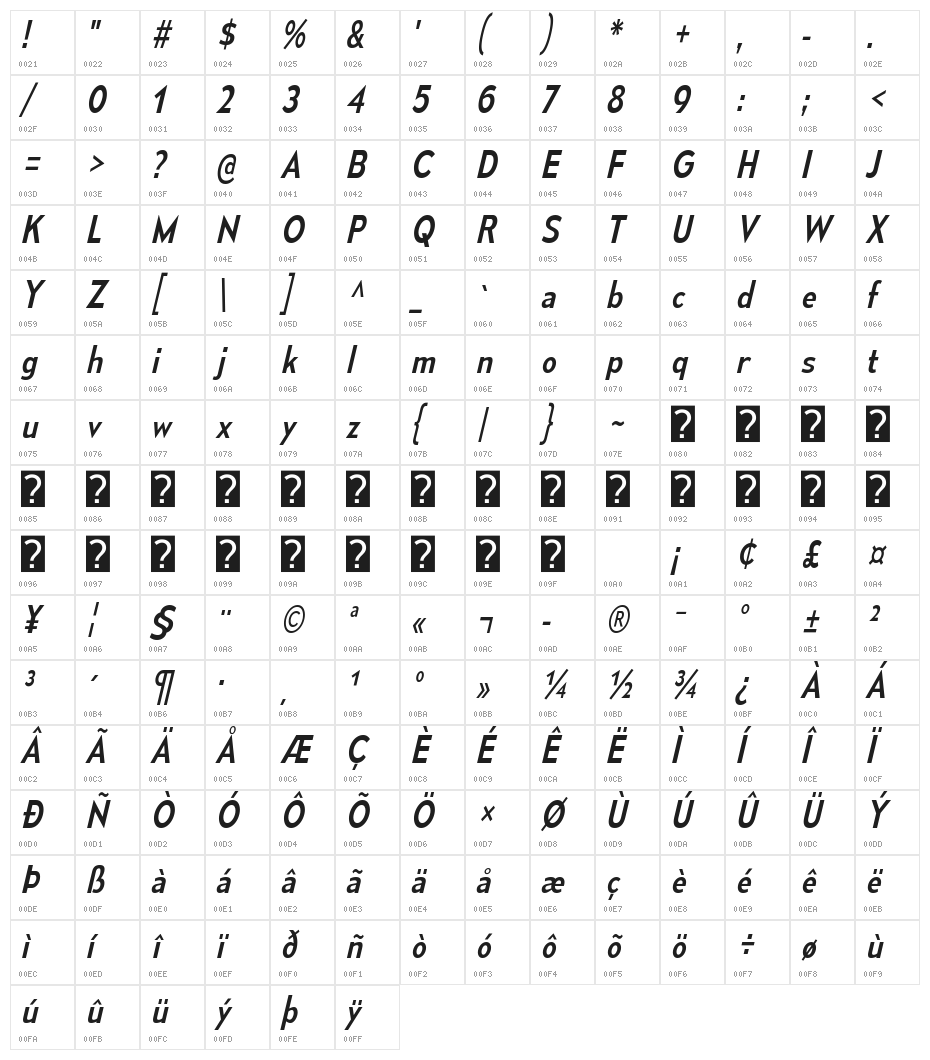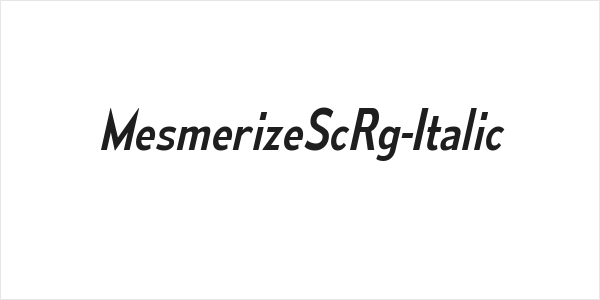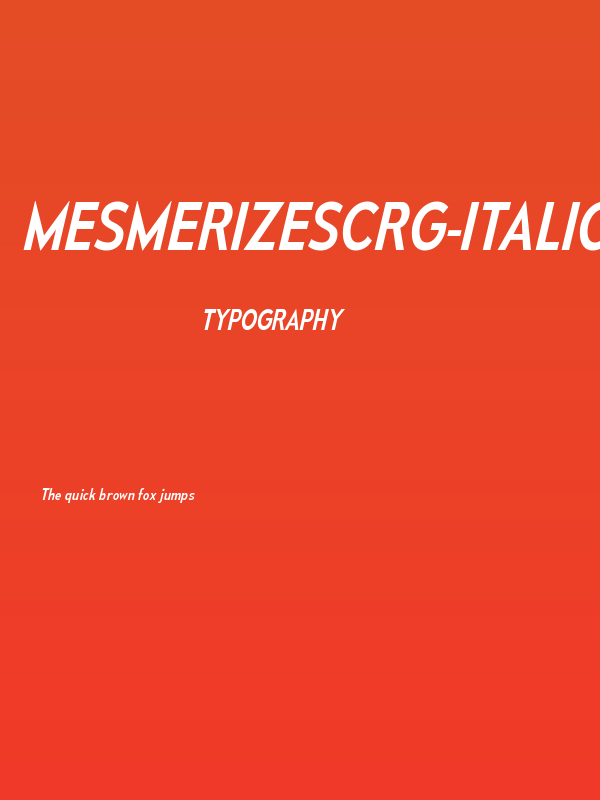
MesmerizeScRg-Italic Font
MesmerizeScRg-Italic Description
This font exhibits a sleek and modern design with a distinct italic slant, giving it a dynamic and forward-moving appearance. The characters are well-proportioned, with a slight emphasis on the vertical strokes, creating a sense of elegance and sophistication. The typeface maintains a consistent stroke width throughout, contributing to its clean and polished look. The uppercase letters are bold and commanding, while the lowercase letters are more subtle, offering a nice contrast. The numerals are clear and easily readable, making them suitable for a variety of applications. Special characters are included, adding versatility to the font's use.
| Proposed Projects | Ideal for branding, advertising, and editorial design projects that require a modern and sophisticated touch. |